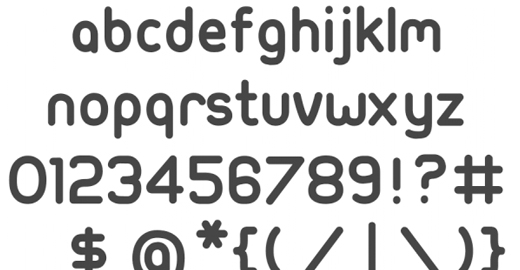
The 9 best free font websites for free fonts online. Best free handwriting fonts, calligraphy fonts, fonts family archive.
List Of Best Free Font Websites Idea In 2022, Every font is added and categorized by a real person. You can filter your results by category, language, popularity, and even attributes such as thickness and width.
You’ll see evidence of this in the kinds of websites that use merriweather to style their paragraphs, like goodreads, coursera, and harvard.edu. Fonts.com sells a huge variety of fonts. 1001 free fonts finding the perfect match. The velvetyne type foundry (vtf).
20 Best Free Fonts Download Websites in 2020 It is the most used font in casino designs too.
As we have perpetually stated, typography is one crucial component in all types of design from product packaging to production, logos, web design, and that has the power to change the display and character as well as convey the meaning behind a project. 1001 free fonts finding the perfect match. Every font is added and categorized by a real person. What to look for in a font aggregator.
Free fonts very graphic and creative. Best free fonts in 2022. But what you should know about this site is. The 9 best free font websites for fonts online find a font: Best Fonts for Websites How to Choose the Perfect Font for Your Website.
So in this post, i’m sharing through my experience, 25 free fonts sites that are most visited and. The league of movable type #10: Google has been offering the software and programs which every user wants for their projects and work. Currently, google fonts has a collection of over 1300 families. The Best Modern Font Pairs For Squarespace — GoLive Squarespace.
The 9 best free font websites for fonts online find a font: The 9 best free font websites for free fonts online 1. Best font websites for free fonts. As a designer, i too am always out there looking for fresh free fonts to add to my font collection. 10 Best Free Fonts Download Websites You Should Use In 2018.
Each font is reviewed by a fontspace moderator, checked for font quality issues, and licenses are verified. But what you should know about this site is. The 9 best free font websites for free fonts online. With 1043 free licensed font families available, google fonts is one of the largest collections of fonts available online. 25 Best Web Fonts for Sophisticated Typography.
The lighter the weight, the more aesthetically pleasing this font is in nature. Google has been offering the software and programs which every user wants for their projects and work. As we have perpetually stated, typography is one crucial component in all types of design from product packaging to production, logos, web design, and that has the power to change the display and character as well as convey the meaning behind a project. The 9 best free font websites for fonts online find a font: 10 Best Free Fonts Download Websites You Should Use In 2018.
Each font is reviewed by a fontspace moderator, checked for font quality issues, and licenses are verified. Best free handwriting fonts, calligraphy fonts, fonts family archive. You’ll see evidence of this in the kinds of websites that use merriweather to style their paragraphs, like goodreads, coursera, and harvard.edu. As we have perpetually stated, typography is one crucial component in all types of design from product packaging to production, logos, web design, and that has the power to change the display and character as well as convey the meaning behind a project. Best Google Web Fonts to Use for Blog Headings The Blog Market Web.
Verified all content up to date. Merriweather is a google font that was designed specifically to improve readability on screens. Each font is reviewed by a fontspace moderator, checked for font quality issues, and licenses are verified. 10 best free font websites for designers 1. Canva Futuristic Font Collection Inspiration in 2020 Futuristic fonts.
The league of movable type #10: This font is the perfect choice for websites with a female demographic. Read the full license agreement. Now if you need some help using those fonts check out. 10 Best Free Fonts Download Websites You Should Use In 2018.
What to look for in a font aggregator. As we have perpetually stated, typography is one crucial component in all types of design from product packaging to production, logos, web design, and that has the power to change the display and character as well as convey the meaning behind a project. Return to best free fonts list. 19 places to your brand 8 take designs next level top 10 designers (2022) dribbble. Top 5 Most Reliable Free Font Sites Pixlr Blog.
Best font websites for free fonts. Fonts.com sells a huge variety of fonts. The 9 best free font websites for fonts online find a font: What to look for in a font aggregator. 20 Best Free Fonts Download Websites in 2020.
Google Fonts, Font Squirrel And Dafont All House A Variety Of Free Fonts.
It is the most used font in casino designs too. 1001 free fonts finding the perfect match. This font is the perfect choice for websites with a female demographic. Each font is reviewed by a fontspace moderator, checked for font quality issues, and licenses are verified.